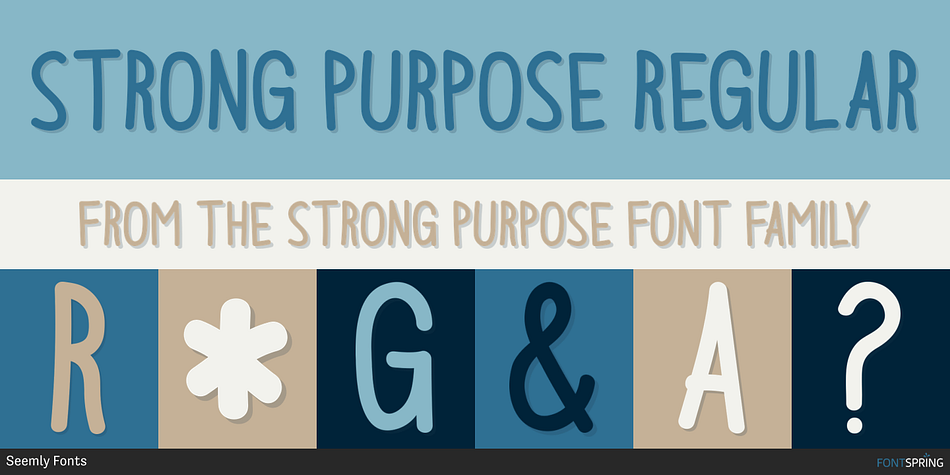
Strong Purpose Regular
Designed by Md. Shohail Bhuiyan, Strong Purpose is a hand display font family published by Seemly Fonts.
Strong Purpose is a fresh and charming handwritten font, perfect for a wide range of uses, including stationery, logos, t-shirt designs, print materials, website headers, posters, flyers, album covers, image sliders, and more.